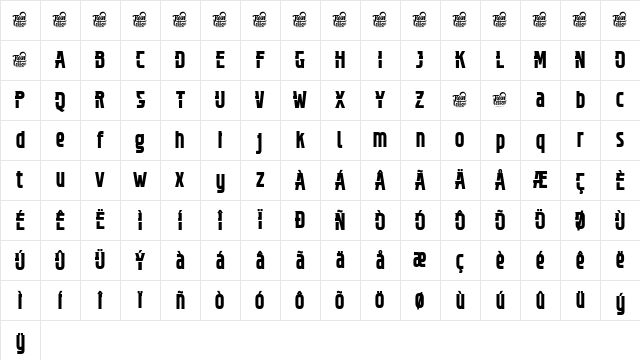
BINNEK Regular
Foundry: twinletter
Designer: Rozi
Design Context for BINNEK
BINNEK is a composed and adaptable typeface that performs quietly and consistently across a wide range of design contexts.